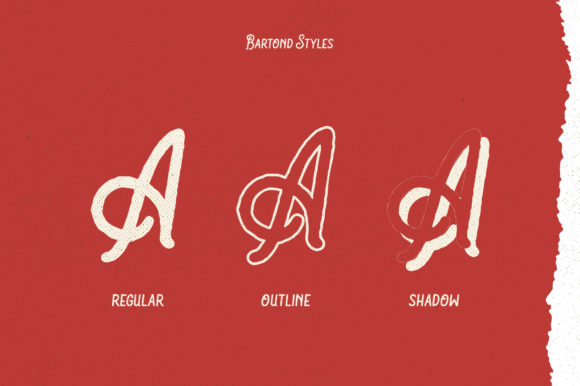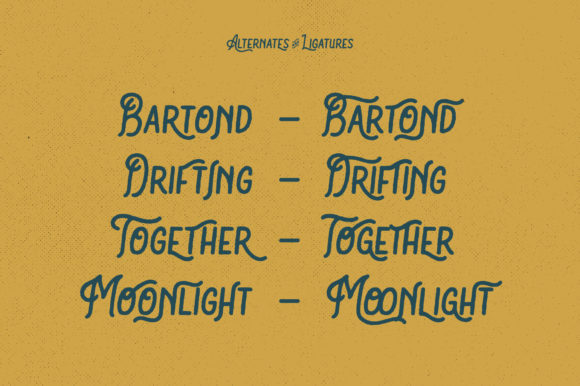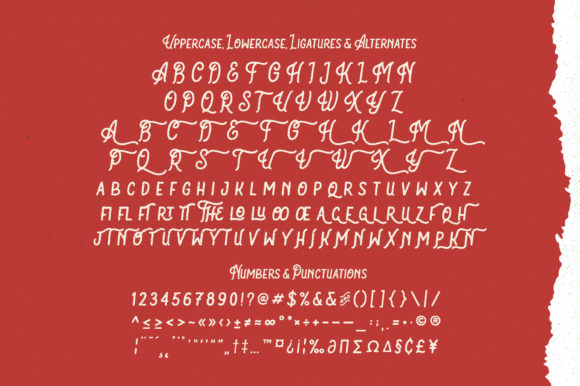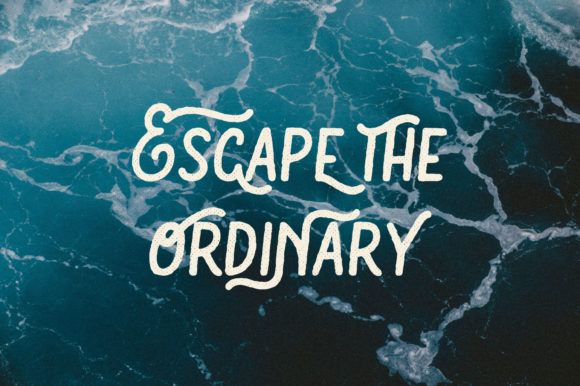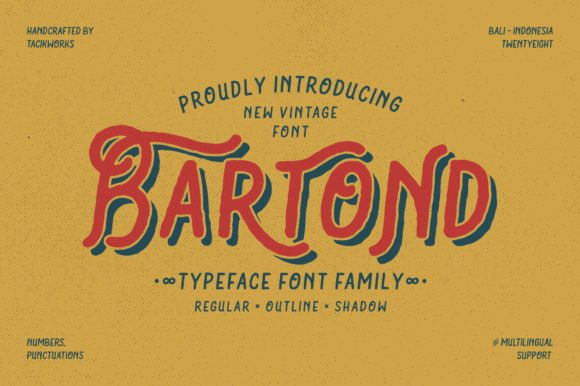
Bartond Font: The Perfect Vintage Display Font for Your Retro-Themed Projects
Are you looking for a font that can add a touch of nostalgia and elegance to your designs? Look no further than Bartond Font. This beautiful display font has a vintage look that makes it perfect for any retro-themed project. In this article, we’ll take a closer look at Bartond Font and explore its features, uses, and benefits for designers and crafters.
What is Bartond Font?
Bartond Font is a display font designed to evoke a sense of nostalgia and sophistication. Its vintage look is reminiscent of classic typography from the early 20th century, making it perfect for projects that require a retro aesthetic. The font is highly legible and versatile, making it suitable for a wide range of applications, from logo design and posters to merchandising, clothing, and business cards.
Features of Bartond Font
Bartond Font has several features that make it an excellent choice for designers and crafters. Some of its key features include:
- Vintage look: Bartond Font has a unique vintage aesthetic that sets it apart from other display fonts.
- High legibility: The font is designed to be highly legible, even at large sizes.
- Versatility: Bartond Font can be used for a wide range of applications, from logo design to merchandising.
- Elegant lines: The font features elegant lines and curves that add a touch of sophistication to any design.
Uses of Bartond Font
Bartond Font is a versatile font that can be used for a wide range of projects. Some of its most common uses include:
- Logo design: Bartond Font is perfect for creating logos that require a vintage or retro aesthetic.
- Posters: The font is well-suited for posters, flyers, and other promotional materials.
- Merchandising: Bartond Font can be used to create eye-catching merchandising materials, such as t-shirts, mugs, and tote bags.
- Clothing: The font is suitable for use on clothing, such as t-shirts, hoodies, and hats.
- Business cards: Bartond Font can be used to create elegant and sophisticated business cards.
Benefits of Using Bartond Font
There are several benefits to using Bartond Font in your designs. Some of the most significant advantages include:
- Unique aesthetic: Bartond Font has a unique vintage aesthetic that sets it apart from other display fonts.
- High versatility: The font can be used for a wide range of applications, making it a great addition to any designer’s toolkit.
- Elegant lines: The font features elegant lines and curves that add a touch of sophistication to any design.
- Easy to read: Bartond Font is highly legible, even at large sizes, making it perfect for use in a variety of contexts.
Tips for Using Bartond Font
To get the most out of Bartond Font, here are a few tips to keep in mind:
- Use it sparingly: Bartond Font is a display font, so it’s best used sparingly to add emphasis and elegance to your designs.
- Experiment with colors: The font looks great in a variety of colors, so don’t be afraid to experiment and find the perfect hue for your design.
- Pair it with other fonts: Bartond Font can be paired with other fonts to create a unique and visually appealing design.
| Author | tacikworks |
Bartond Font is a beautiful display font with a vintage look that’s perfect for any retro-themed project. Its high legibility, versatility, and elegant lines make it a great addition to any designer’s toolkit. Whether you’re creating logos, posters, merchandising materials, or business cards, Bartond Font is a great choice. So why not give it a try and see how it can elevate your designs?